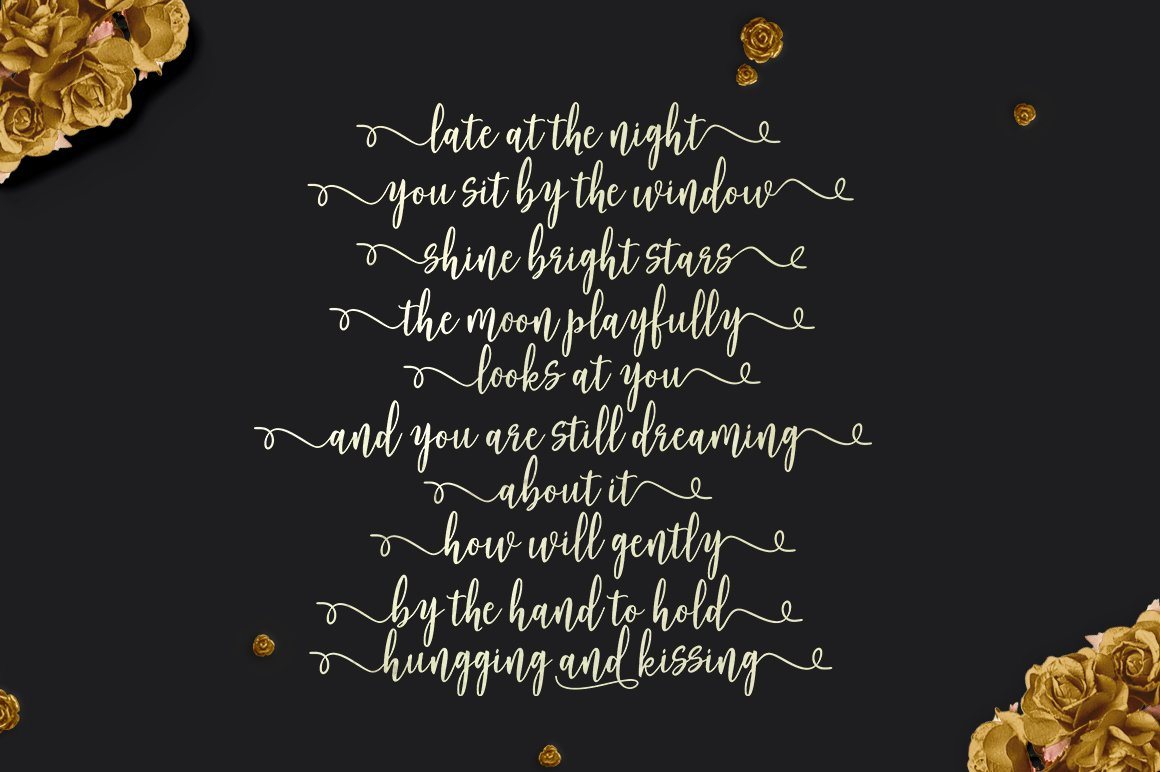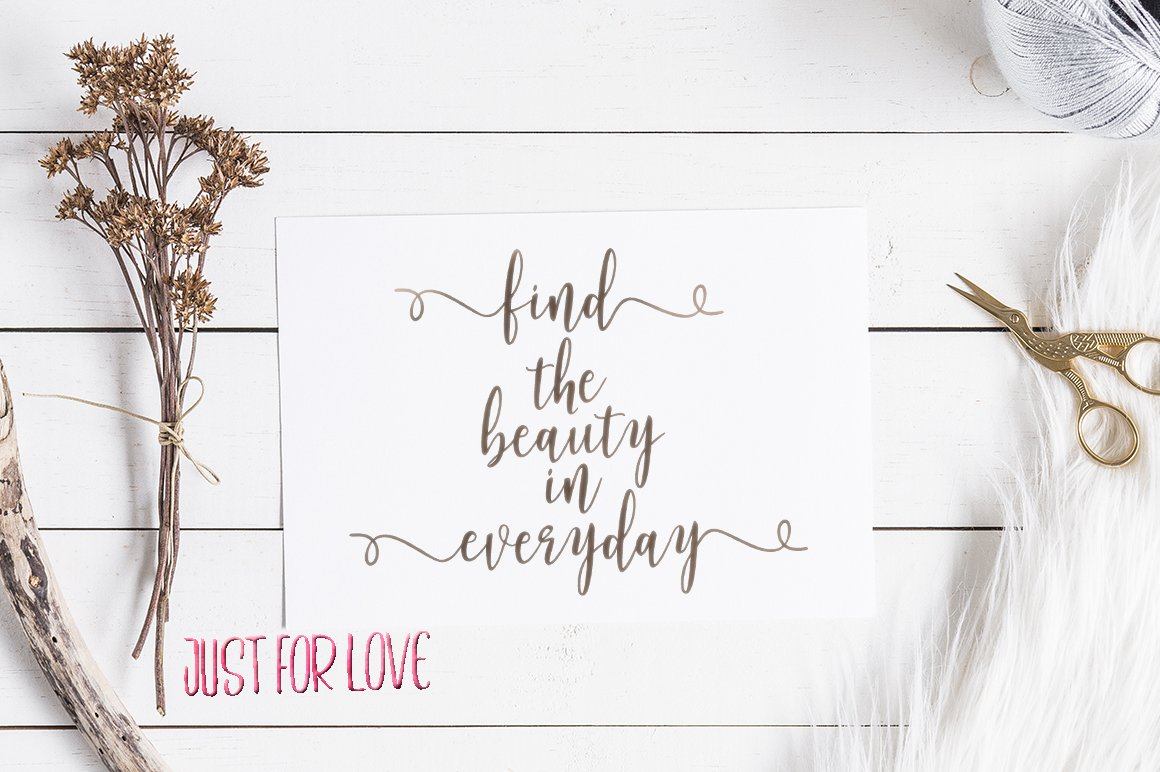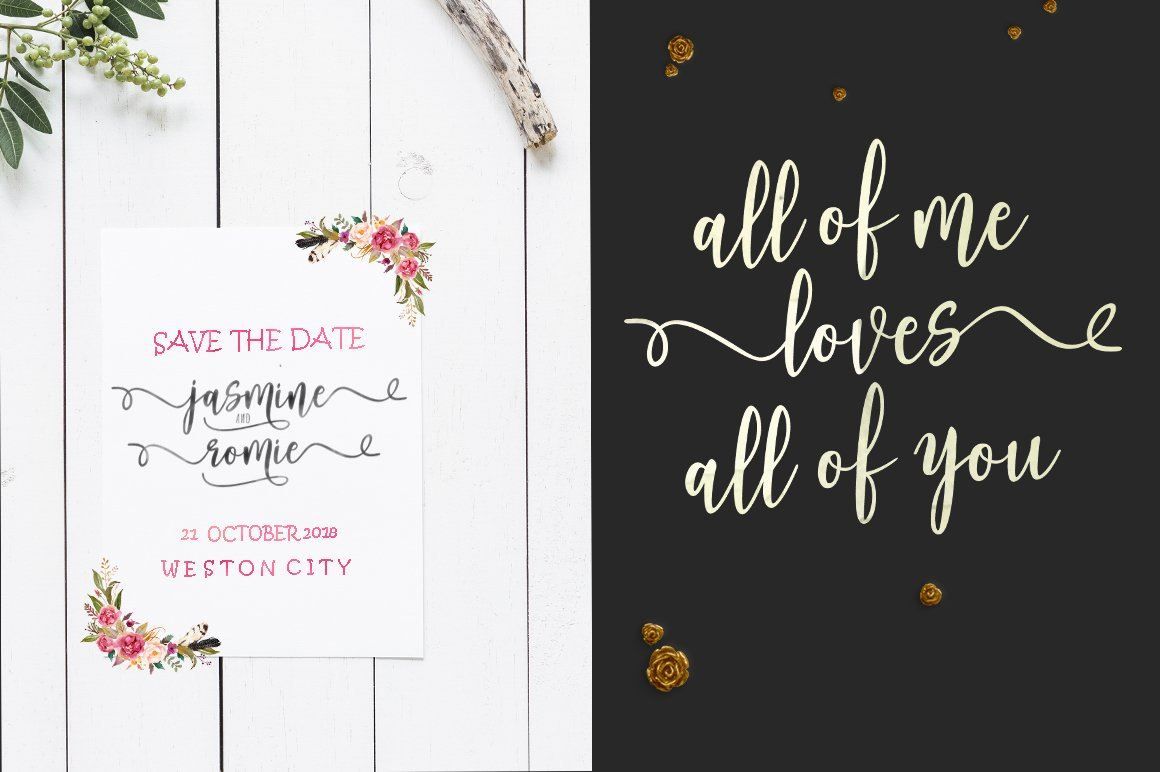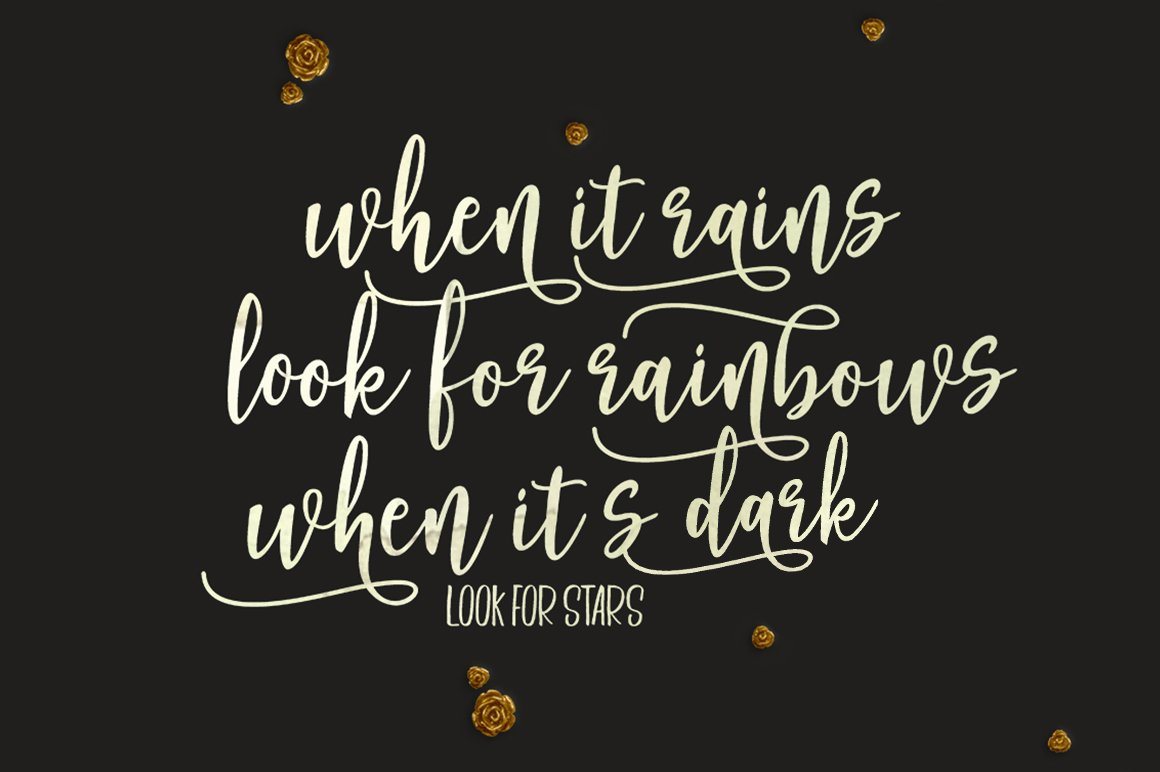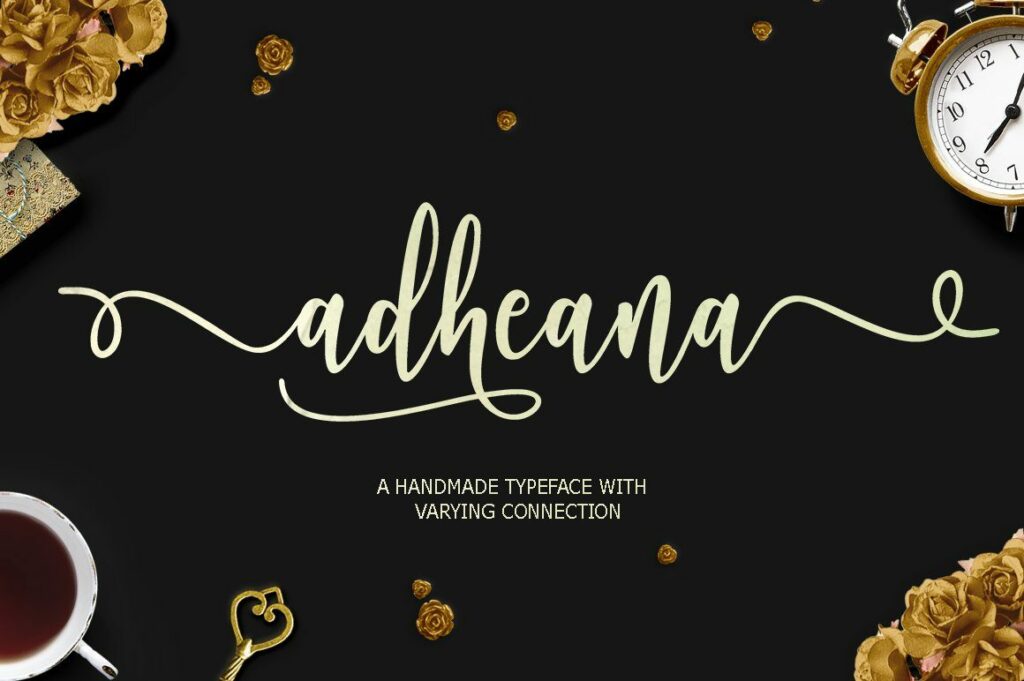
Adheana Font Duo
About Adheana Font Duo
Adheana Font Duo Adheana script is a hand brushed font created with a brush and ink, bold and irregular baseline. Contains a complete set of lowercase, uppercase, alternates, ligatures, punctuation, numbers, and multilingual support. And additional Adheana sans, working in harmony with Adheana script to create typography awesome creations. Get some inspiration from the preview above. Contains a complete set of lowercase, uppercase, ligatures, punctuation, numbers, and multilingual support. This font ideal for use in watercolor design or lettering style bold hand, such as blog header, posters, wedding elements, t-shirt, apparel, cover books, business cards, greeting cards, branding, merchandise, invitations and handmade quotes and more. How to access all alternative characters, using Windows Character Map with Photoshop: https://www.youtube.com/watch?v=Go9vacoYmBw How to access all alternative characters using Adobe Illustrator: https://www.youtube.com/watch?v=XzwjMkbB-wQ Thank you!